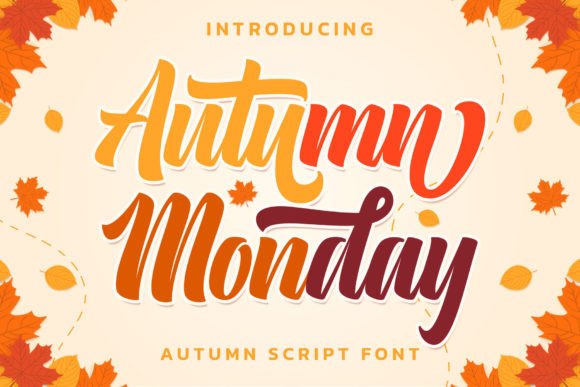
Introducing Autumn Monday Font, the ultimate choice for those seeking the best fonts for simple logos. Crafted with utmost care by the talented team at Hoperative Design, this script font will leave you awe-inspired with its captivating Autumn Concept.
Autumn Monday Font is not just a font, it's an exquisite piece of art. With its beautiful and elegant design, it effortlessly adds a touch of class and sophistication to any project. Whether you're creating a logo, branding materials, invitations, or even wedding designs, this font is the perfect companion to bring your vision to life.
What sets Autumn Monday Font apart from the rest is its unique and modern look. It stands out from the crowd, making a bold statement and leaving a lasting impression. Your audience won't be able to resist the charm and allure of this font, making it a powerful tool to captivate their attention.
But that's not all – Autumn Monday Font is incredibly versatile. Its applications go beyond the realms of design. Use it to create stunning greetings cards, elevate your social media posts, or even add a touch of elegance to your stationery. The possibilities are endless, and this font is here to unlock your creative potential.
One of the standout features of Autumn Monday Font is its PUA encoding. This means accessing all the glyphs and swashes is a breeze. Say goodbye to the hassle of searching for special characters – they're all at your fingertips, ready to be incorporated seamlessly into your designs.
Now, let's talk about the emotions this font evokes. Imagine the feeling of awe as you unveil a logo that perfectly represents your brand's essence. Picture the excitement of receiving an invitation that exudes sophistication and elegance. With Autumn Monday Font, these emotions become a reality. It breathes life into your projects, evoking a sense of enchantment, beauty, and creativity.